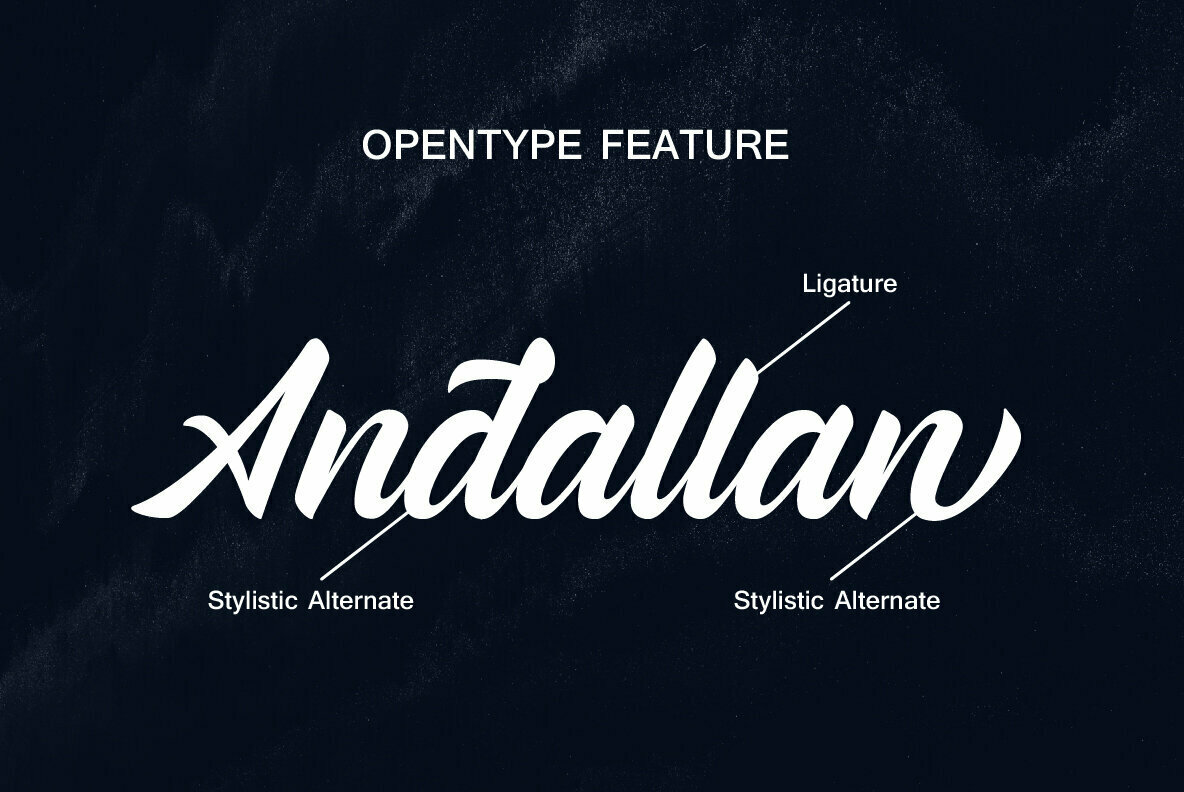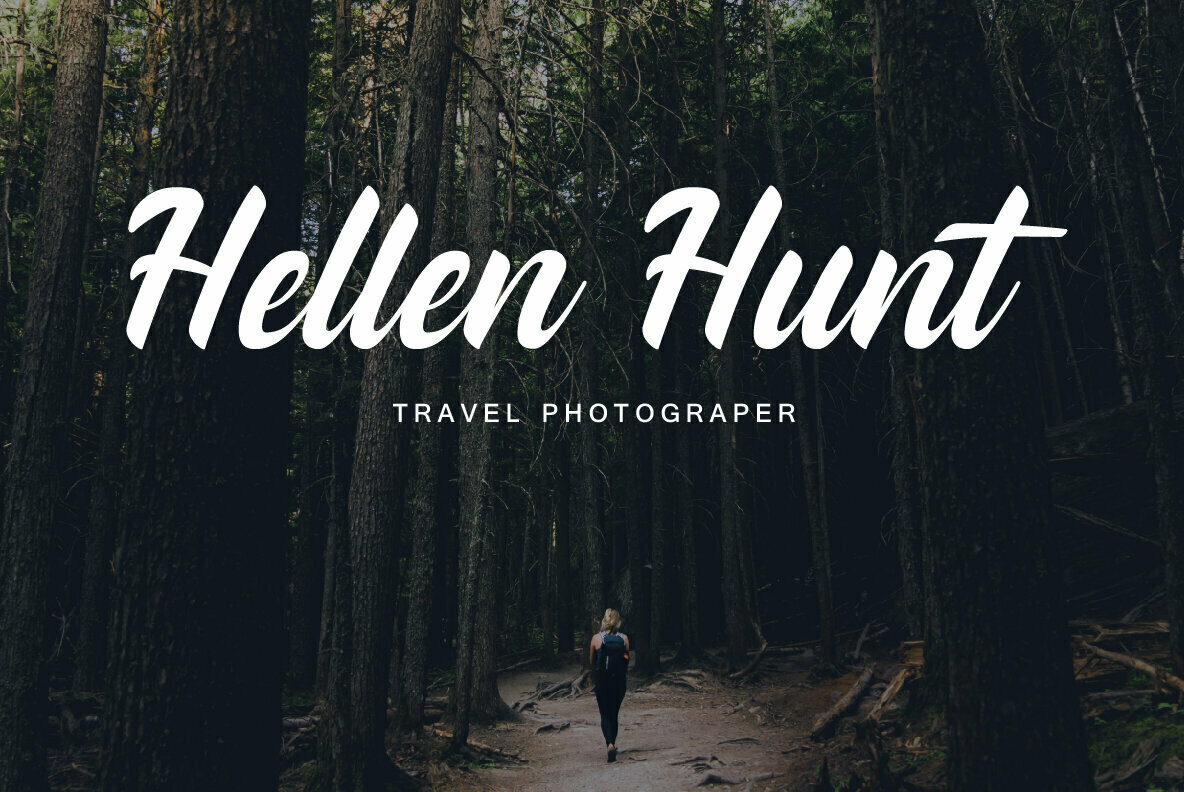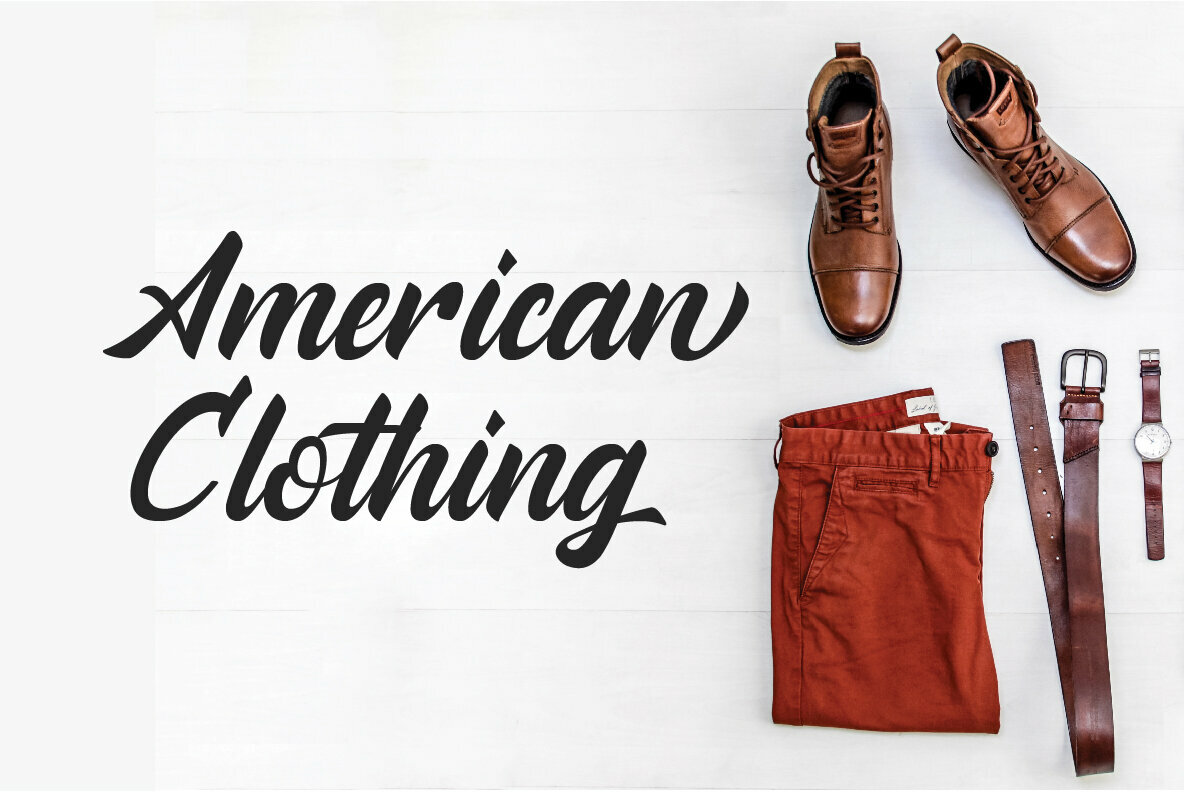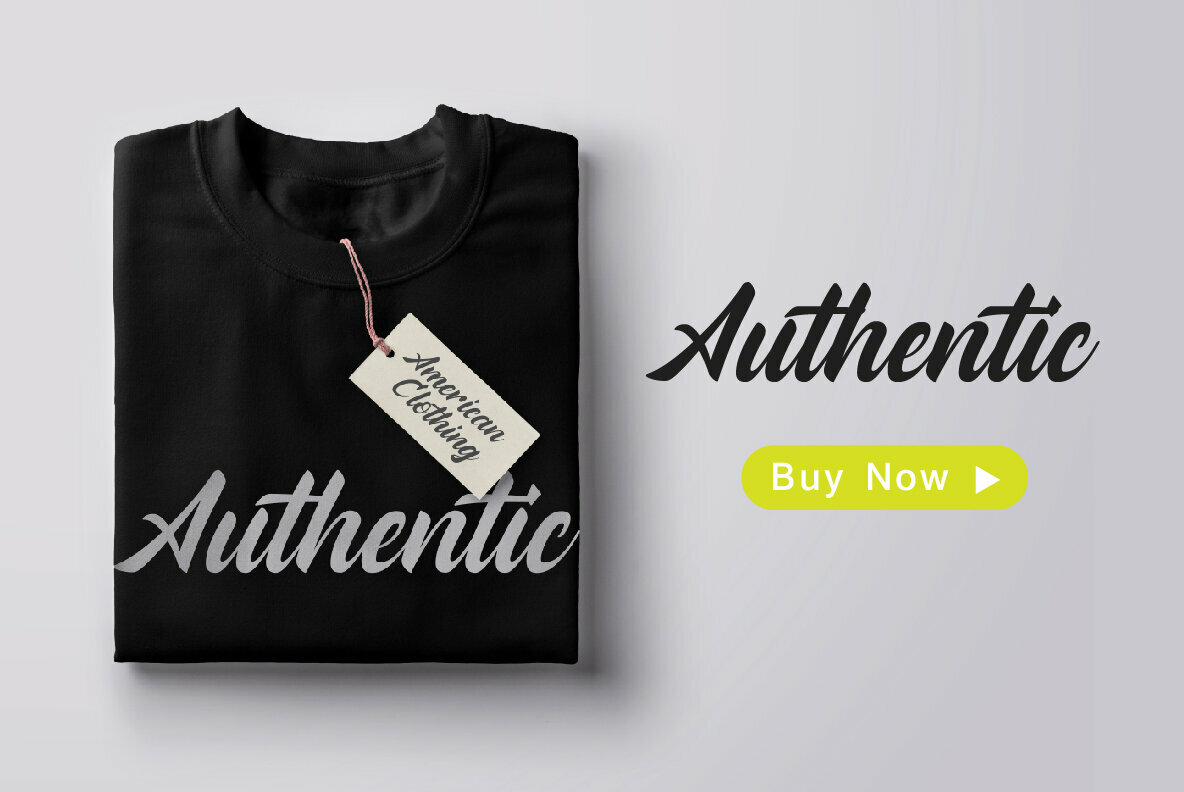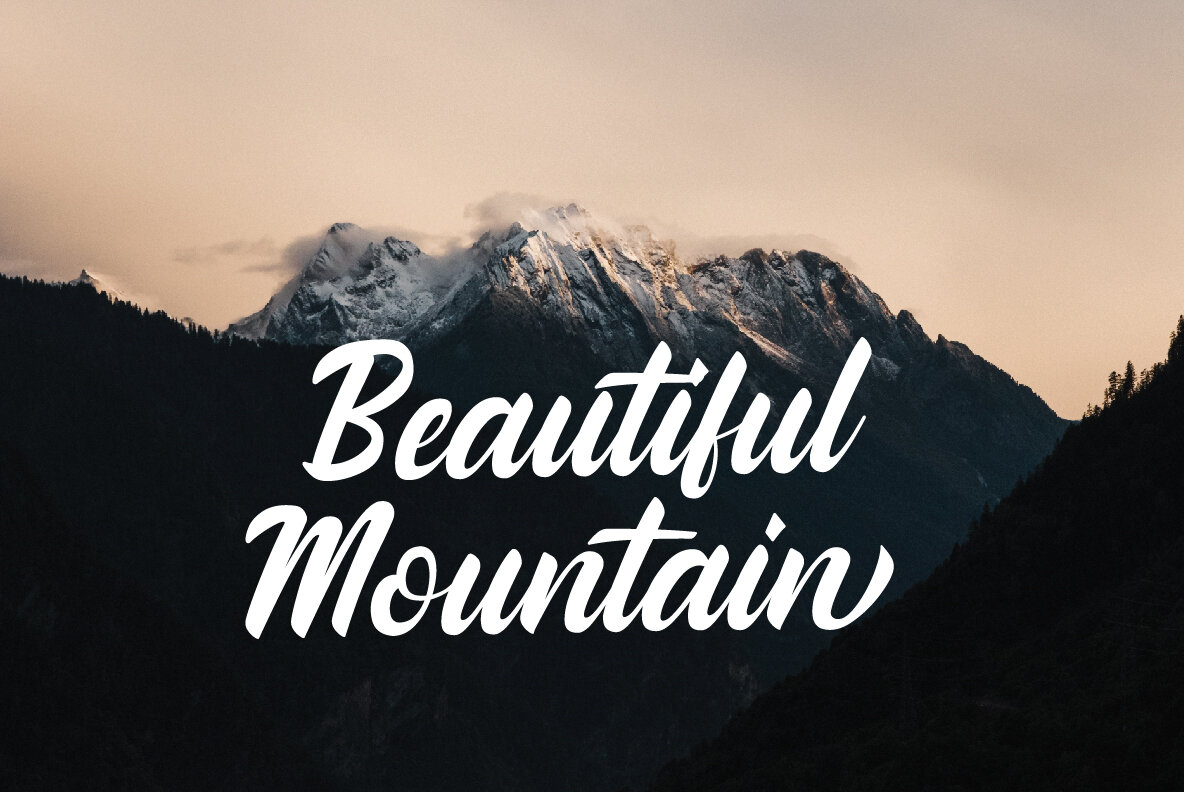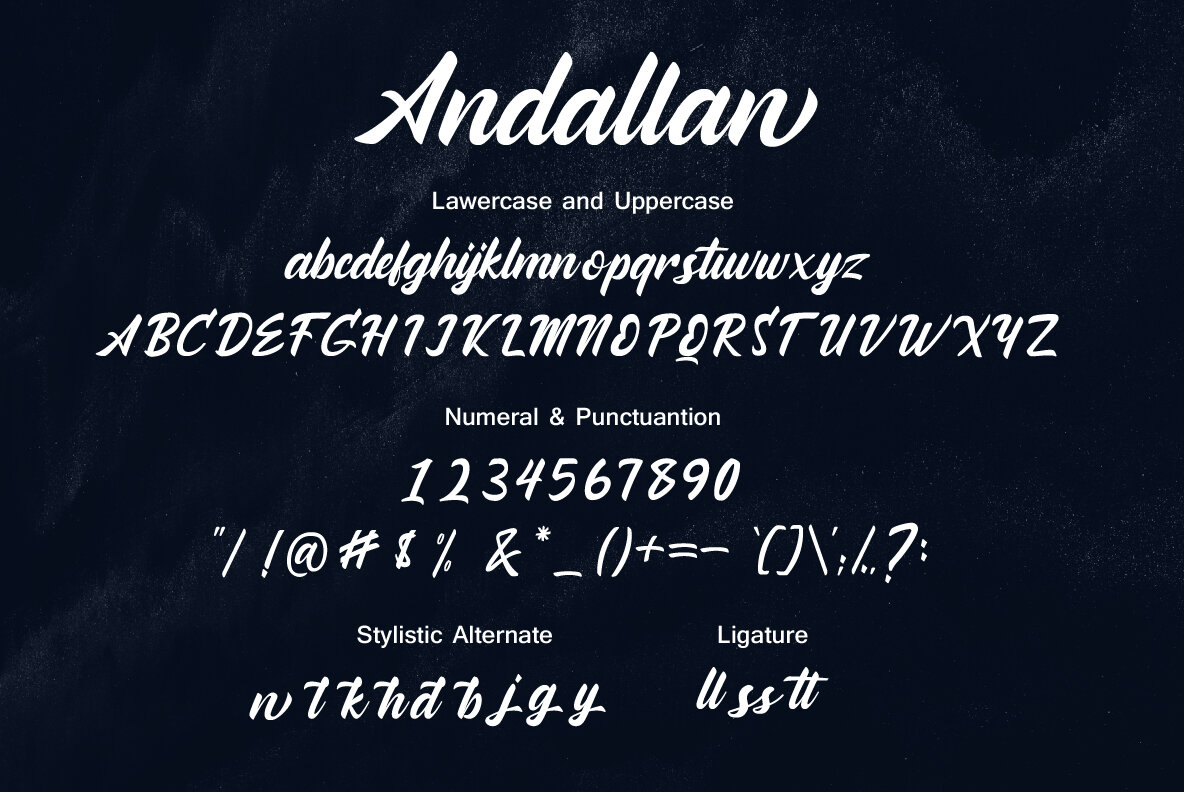
Andallan Font
Andallan
Andallan, crafted to perfection by Sabrtype Studio, embodies the art of stylish handlettering in a smooth and polished form. Its versatility makes it a distinguished choice for a wide array of design projects, from creating distinctive logos to enhancing printed quotes, invitations, and product packaging. Whether you're working on headers, logotypes, or even apparel designs, Andallan seamlessly fits into any creative endeavor, adding a touch of sophistication and clarity.Andallan: Elegant Handlettering for Versatile Design